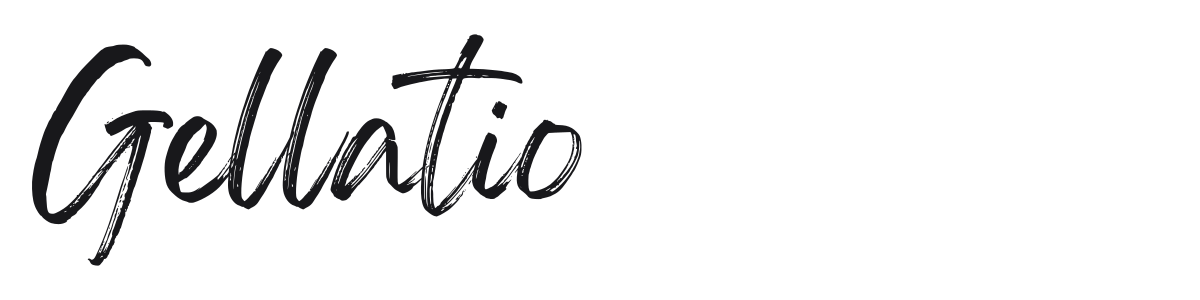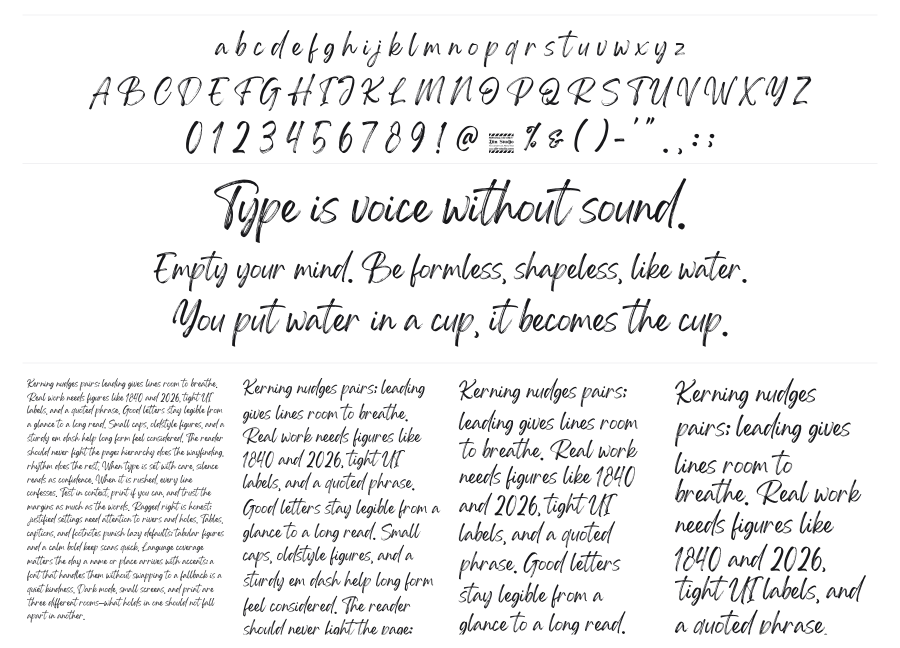
Gellatio
Gellatio is a natural brush script from Din Studio with genuine hand-lettered texture and dry-brush roughness throughout its strokes. The flowing connections and slightly unpredictable character shapes keep it feeling spontaneous rather than mechanical. It carries that worn, market-chalk energy that works across branding, packaging, wedding stationery, and editorial headlines.